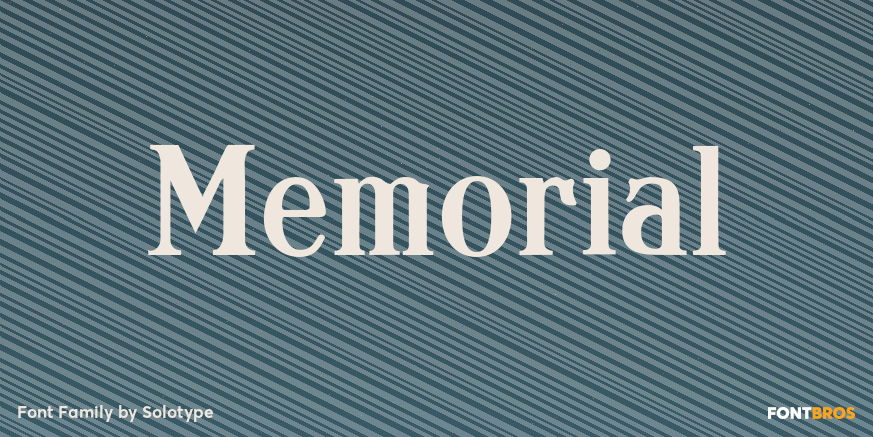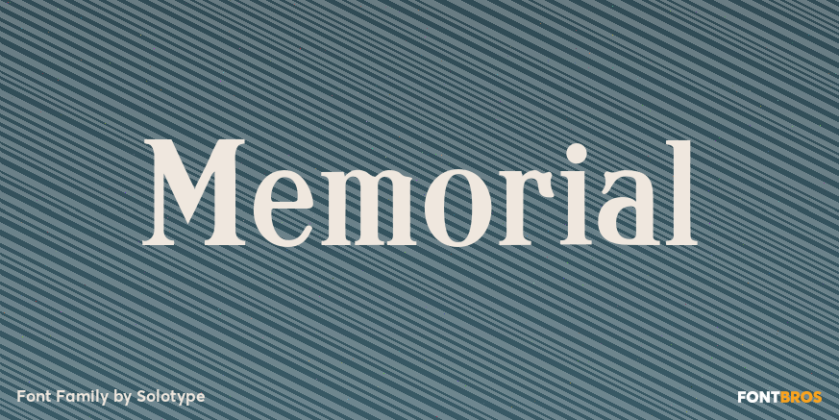
About Memorial
The Fredrick Ullmer Co. in London acted as agent for many typefoundries, and this was one of their offerings. Some of the letters were rather outlandish, so we fearlessly decided to improve them. The result is this dated but pleasant font. The original…